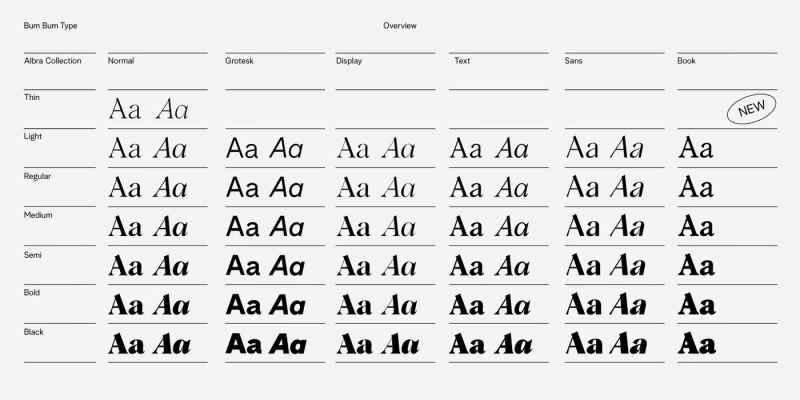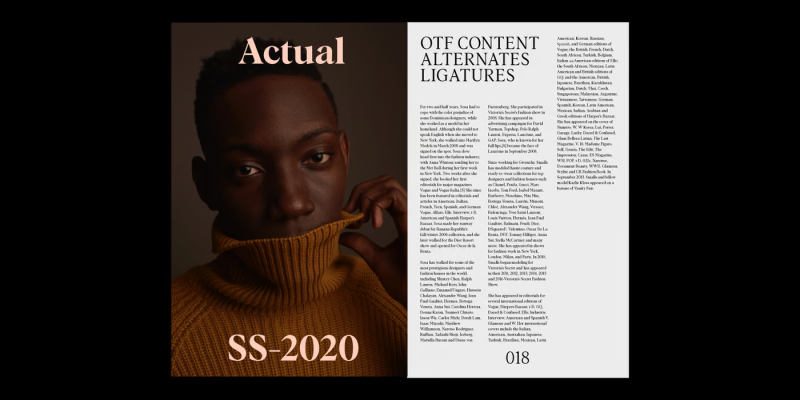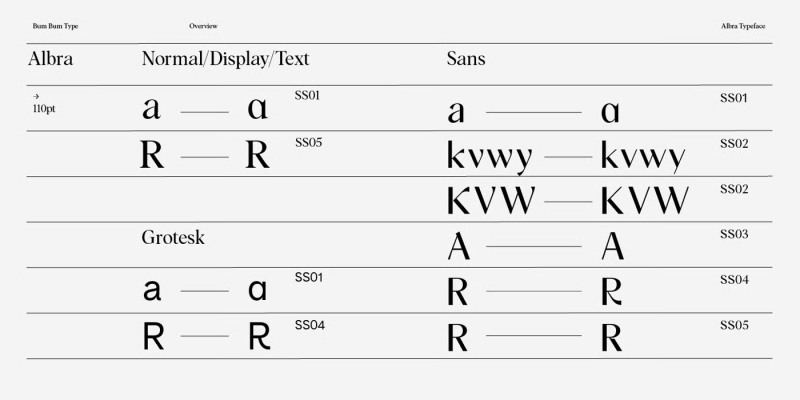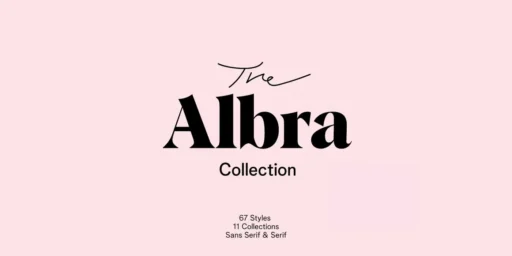
Albra Font
Albra is a modern and elegant serif font family designed by Yang Lu and released by BumBum Type. Albra is a contemporary family with numerous applications suitable for various projects, from magazines and newspapers to branding and corporate identity.
After the release of Albra font, it has gained popularity and admiration from the design community. Due to its unique and versatile poster font features, it is an ideal font to use in various designs ranging from high-profile projects to general use. The font’s versatility in being able to give a uniform look and feel across numerous applications makes it a useful resource for designers.
Albra font family has a neat geometric look with slight humanist touches that give a good balance between modernity and legibility. Albra features high contrast, sharp serifs, and refined details of the letters. This detail-oriented approach to the design leads to a font that is professional and elegant without being too complicated. The family is available in a Light to Black weight range with both text and display versions and Sans and Grotesk designs. The typeface is also available in an italic option for each weight to ensure that designers get all the tools they need to create different designs.
Another essential characteristic of Albra is its flexibility, which makes it applicable to various design applications. It is highly legible due to its precise design and is suitable for print as well as for digital purposes, which means it works well in body text, headlines, and even large prints. This versatility allows Albra to excel in editorial design, where readability and aesthetics are of paramount importance, as well as branding and identity jobs that need to be contemporary as well as timeless. Here, Albra’s simplicity and flexibility will guarantee that it looks great on any device, making it a safe bet for any design project.
Albra Font is a Serif Fonts font that brings a professional and versatile look to your projects. Albra is a modern and elegant serif font family designed by Yang Lu and released by BumBum Type.